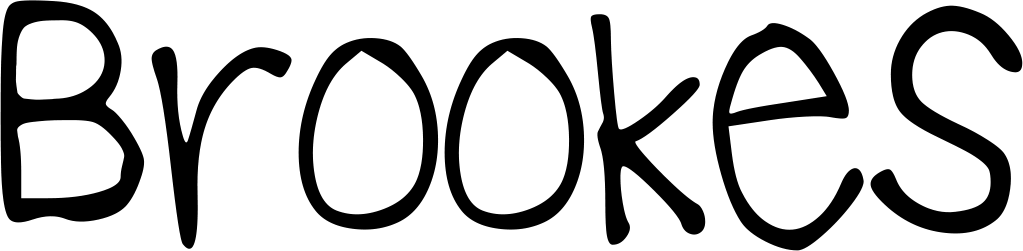
BrookeShappell8 Font
Built as cool imperfect characters, BrookeShappell8 is capable of bringing both modernity and delicacy to the table. Thus, it makes perfect sense to benefit from this impressive handwriting font to treat your typography with a cheerful style.
Great for websites, games, children’s books, and more, BrookeShappell8 proves to be an excellent means of achieving something far more precious than a merely formal relationship with your audience.